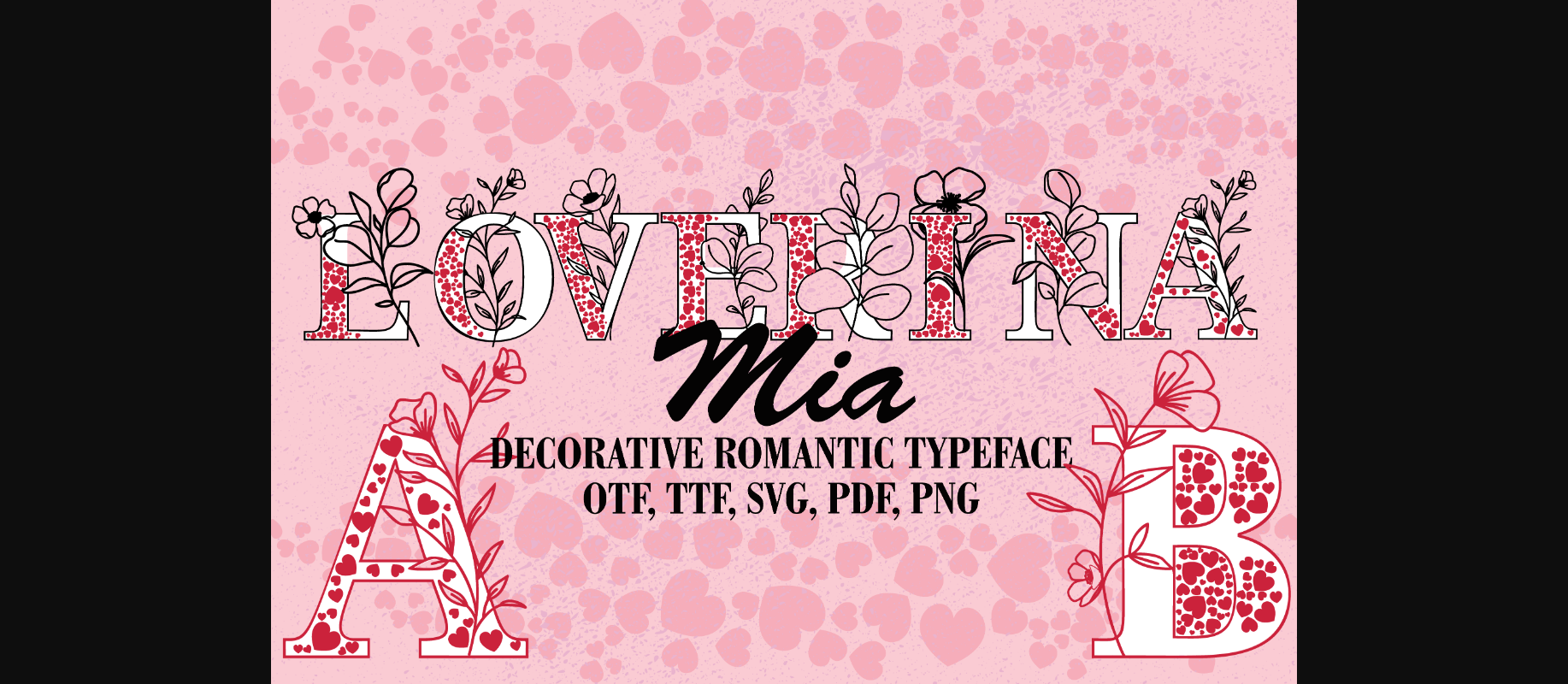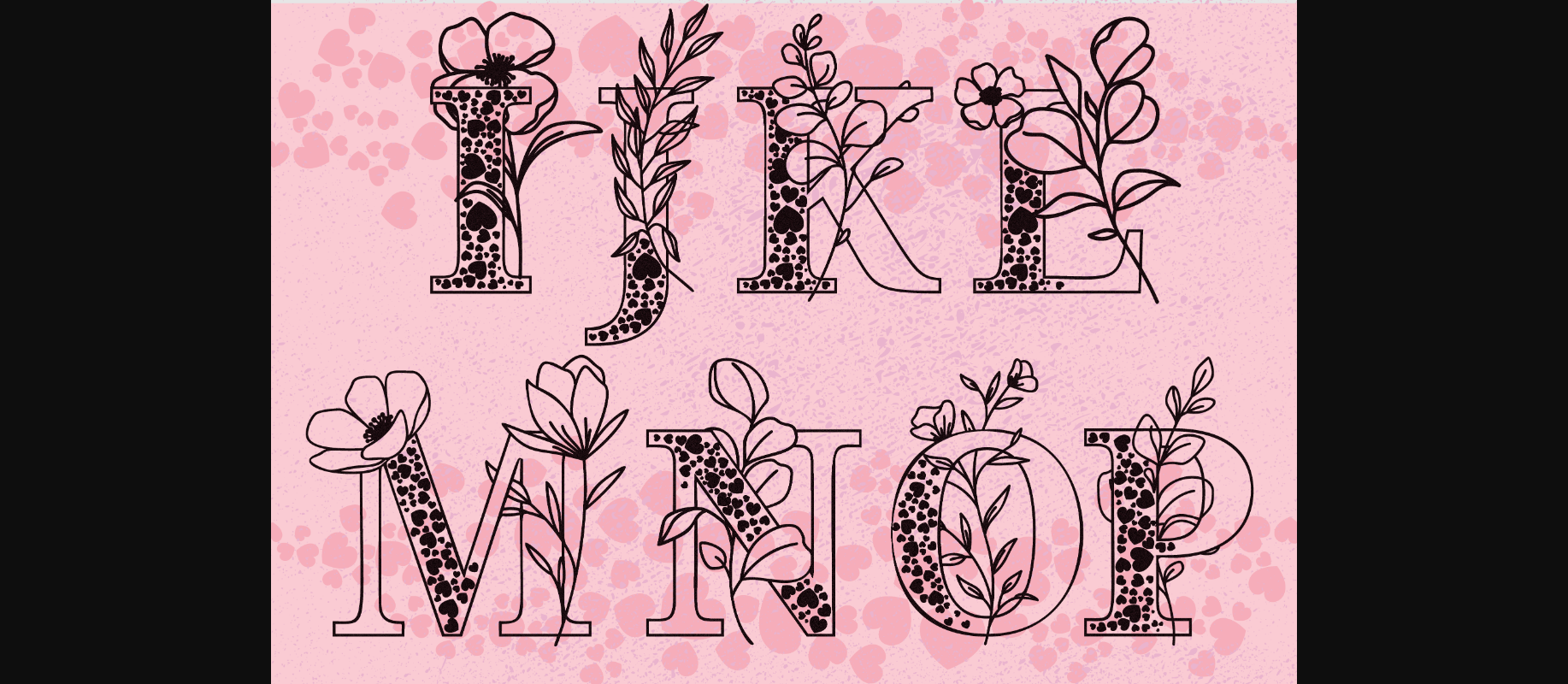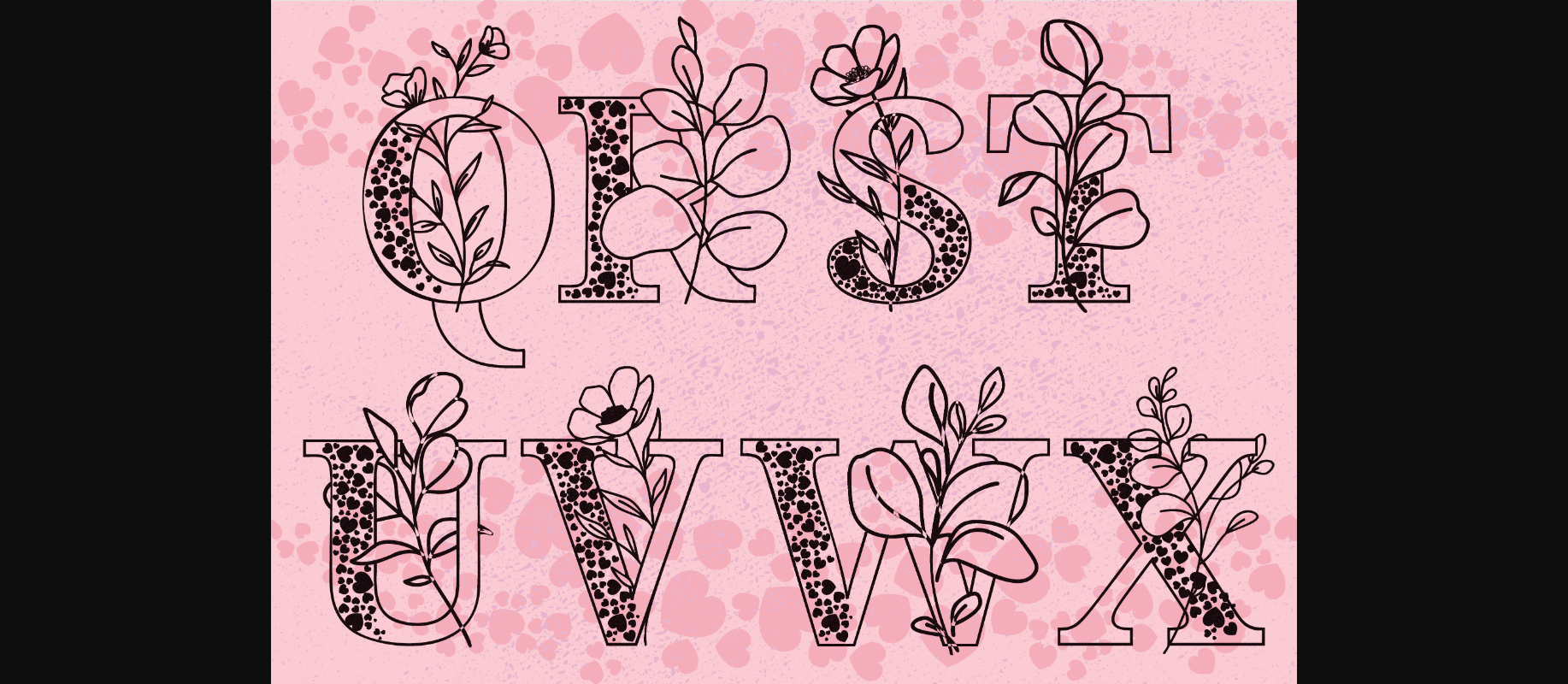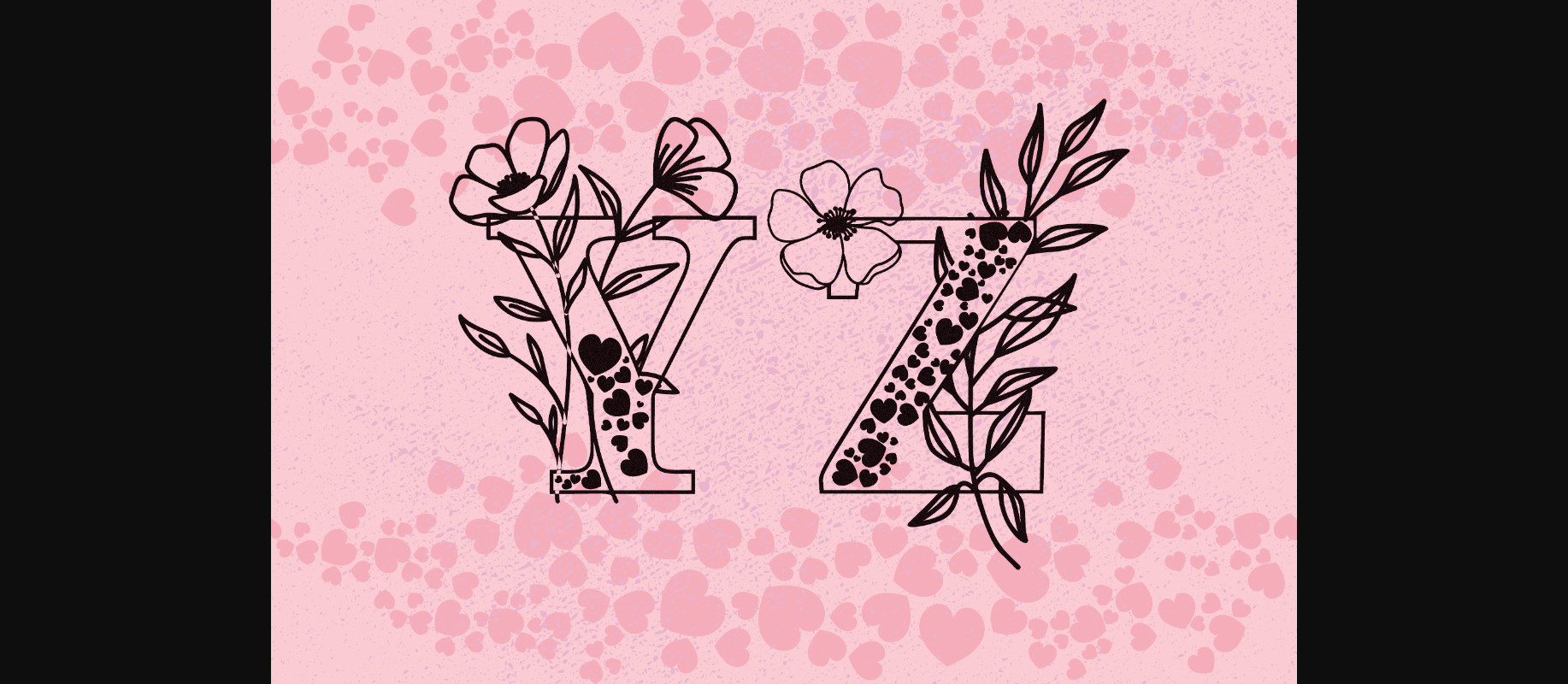
About Loverina Font
Loverina is a stylish, uniquely designed and stylish decorative font. It looks stunning on wedding invitations, thank you cards, quotes, greeting cards, logos, business cards and every other design which needs a delicate touch.